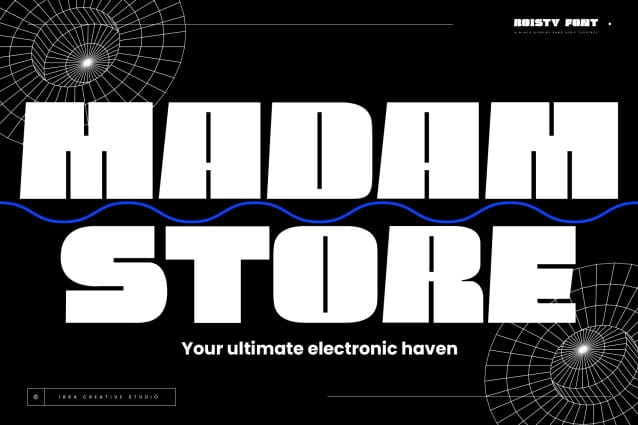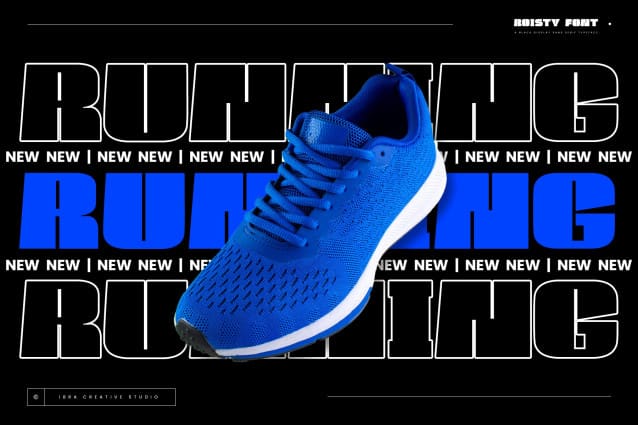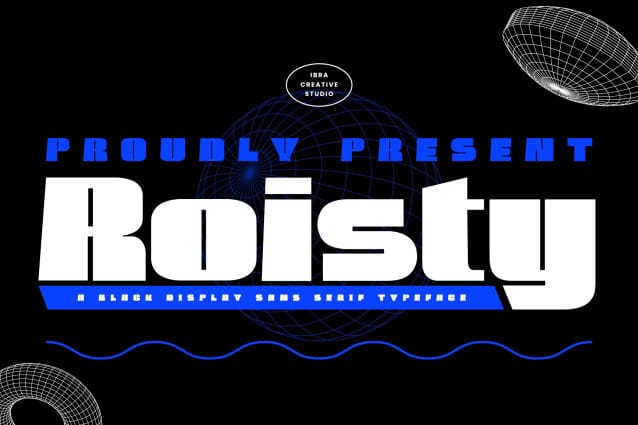
Roisty Font
Roisty Font, a sleek and contemporary black display sans-serif typeface, exudes sophistication and modernity in its design. With clean lines and a bold, assertive presence, Roisty commands attention while maintaining readability. The sharp contrast between its thick strokes and thin lines creates a visually striking appearance, making it an ideal choice for headlines, logos, and other display purposes. The typeface’s timeless elegance, combined with its versatile nature, ensures that Roisty stands out in both digital and print mediums, embodying a perfect blend of classic refinement and cutting-edge aesthetics.